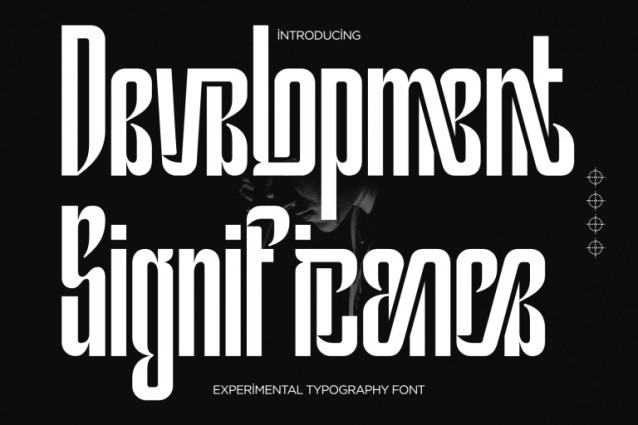
Development Significance Font
Development Significance – Condensed Font, an avant-garde Experimental Sans-Serif Display Font designed for creatives who dare to explore new visual dimensions. This typeface combines modular geometry, bold vertical forms, and inventive ligature systems to deliver a distinctive, futuristic style. Perfect for experimental branding, music posters, digital art, or editorial design that seeks to challenge convention.
🔤Features:
Uppercase & Lowercase Letters
Approximately 100 Special Ligatures for unique compositions
Numerals & Punctuation for complete versatility
Accented Characters supporting multiple languages
🔤About 100 ligatures combined with Stylistic Alternates Font: